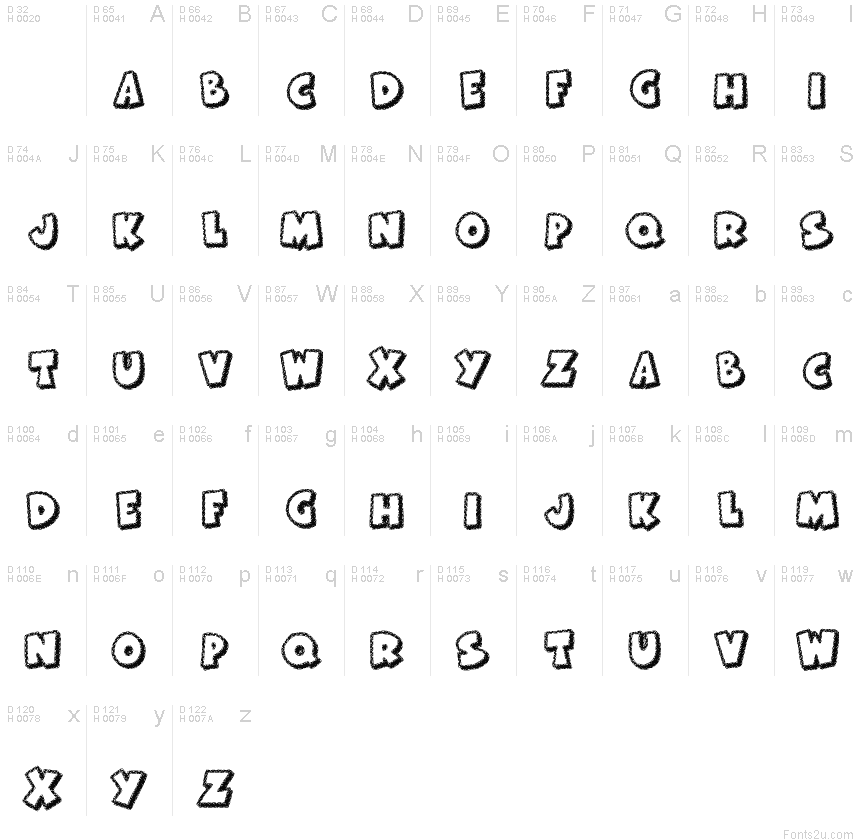
KR Frosted Cake
KR Frosted Cake font by Kat Rakos is a free cartoon display typeface that looks like it’s been piped onto the page with a wobbly icing bag. Chunky, balloon-like letters are crisscrossed with a scribbly, hand-drawn texture, giving every word a sugary, doodled energy. The bold outlines keep it readable even with all that frosting-like detail, so headlines feel loud, playful, and a little bit messy-in the best way.
This free font shines on kids’ party invitations, bake sale posters, birthday cards, classroom printables, stickers, and playful social media graphics for cafés or bakeries. Using KR Frosted Cake at large sizes lets the scratchy, frosted interiors really show, while pairing it with a clean sans serif for body text keeps things fun but legible.